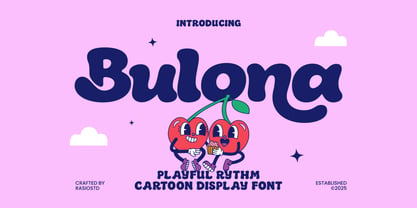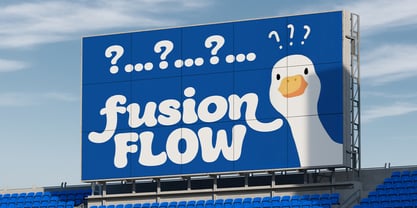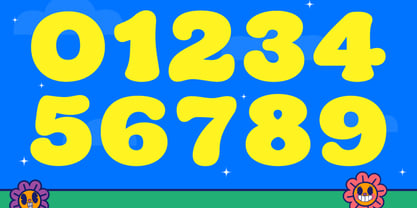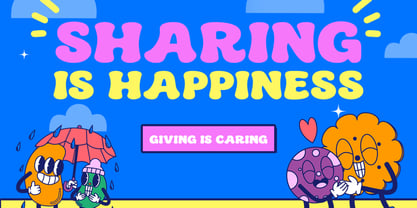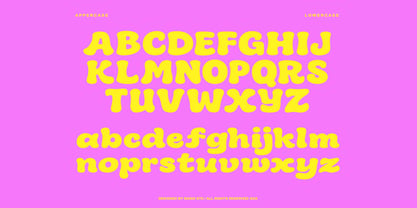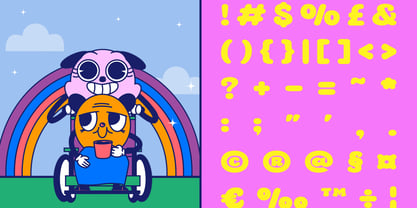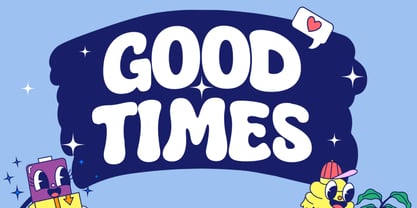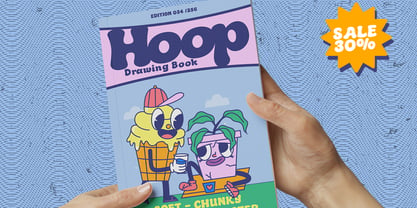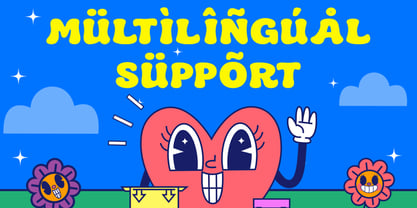
Bulona
Bulona is a cheerful and rhythmically playful cartoon display font designed to bring a smile to every design it touches. Crafted with bold curves, bubbly forms, and a sense of movement, this font is perfect for youthful and energetic visuals. Bulona includes uppercase and lowercase characters, playful numerals, and a smooth rounded style that enhances readability while maintaining a lively personality. Bulona is highly relevant for creators targeting a young audience or seeking a joyful, cartoonish tone. From educational platforms to kid-themed merchandise, it brings visual excitement and warmth. Its unique character shapes and bold, rounded strokes make it suitable for printed products like book covers and stickers, as well as digital applications such as mobile games, YouTube thumbnails, or Instagram stories.